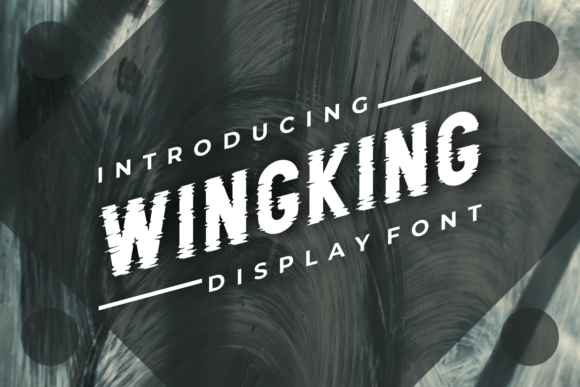
Wingking Font Review for Modern Web Design
I was recently staring at a Figma file for a creative coaching client, trying to find the right balance between professional authority and approachable warmth. The layout was solid, the color palette was refined, but the hero section felt flat. It lacked that specific digital texture that stops a user from scrolling past. That is when I decided to test Wingking in the main headline. As a web designer who frequently navigates the tension between aesthetic appeal and functional usability, I am often skeptical of new display fonts. Many look beautiful in a static preview but fall apart when subjected to responsive breakpoints, variable screen sizes, and accessibility standards. However, integrating this typeface into a live project revealed why it has become such a valuable asset in my digital typography toolkit.
Wingking is not just another decorative option; it is a modern display font that carries a distinct personality without sacrificing structural integrity. In the context of web design, where every pixel affects load time and legibility, finding a creative font that performs well across devices is rare. My experience testing this typeface on landing pages, portfolio sites, and e-commerce headers suggests it bridges the gap between editorial style and user interface functionality. It offers a cool, contemporary vibe that elevates digital brand identities, provided it is deployed with intention and technical awareness.
Elevating Hero Sections and Digital Brand Identity
The primary strength of Wingking lies in its ability to command attention in high-impact areas like hero sections and above-the-fold content. When designing for a boutique online store or a personal brand website, the headline needs to communicate the brand's essence in milliseconds. During my testing, I found that Wingking possesses enough geometric stability to remain readable at large sizes while offering unique character shapes that differentiate the brand from generic system fonts. It avoids the overly distressed look that can sometimes cause rendering issues on lower-resolution screens, maintaining crisp edges even when scaled up for desktop monitors.
This visual personality translates directly to perceived value. For a course sales page I recently redesigned, swapping a standard bold sans serif for Wingking in the main value proposition created an immediate sense of premium quality. The font feels curated rather than default, which helps establish trust with visitors. In digital branding, this distinction matters. Users associate thoughtful typography with professional service delivery. Whether you are building a portfolio homepage, a campaign landing page, or a digital product showcase, this typeface acts as a visual anchor. It signals to the user that the content they are about to consume has been crafted with care, encouraging them to stay longer and engage more deeply with the site.
Responsive Behavior and Mobile Legibility
A beautiful font is useless if it breaks the mobile experience. One of the first things I evaluate in any new webfont is how it handles vertical space and narrow viewports. Wingking performs surprisingly well in responsive layouts, but it requires deliberate scaling strategies. On desktop, the letterforms have room to breathe, allowing the modern aesthetics to shine. On mobile, however, the tight tracking that looks elegant on a wide screen can become visually dense. I found that adjusting the line-height and slightly increasing letter-spacing on smaller breakpoints preserved the font’s charm without compromising readability.
For UI designers, it is crucial to remember that display fonts behave differently than body copy. Wingking is optimized for short phrases, titles, and calls to action, not for paragraphs of text. When used for button labels or navigation items, size becomes a critical factor. I recommend keeping this typeface above 16px equivalent on mobile devices to ensure touch targets remain clear and text remains accessible. If your design relies on overlaying text on images, Wingking holds up well due to its consistent stroke weight, but always ensure sufficient contrast ratios. Testing on actual devices, rather than just browser resizing tools, confirmed that the font maintains its integrity against complex background textures, making it suitable for immersive storytelling sections and promotional banners.
Strategic Font Pairing for User Experience
No font exists in isolation, and Wingking demands a supportive partner to function effectively in a web environment. Because it carries so much visual weight and personality, pairing it with another decorative font usually results in a cluttered, confusing interface. The most successful implementations I have tested involve grounding Wingking with a clean, neutral sans serif font for body copy. This creates a classic high-low dynamic: the display font captures emotion and interest, while the utilitarian partner ensures information is digestible and scannable.
Consider the hierarchy of a blog post or a service page. Using Wingking for H1 and H2 tags establishes a strong editorial rhythm, guiding the user’s eye through the content structure. Meanwhile, a simple geometric sans serif for the article text reduces cognitive load. This pairing strategy is essential for maintaining good UX. You want users to feel inspired by the headlines but comfortable reading the details. Alternatively, for brands seeking a more traditional or academic feel, pairing Wingking with a minimalist serif font can create a sophisticated, magazine-like aesthetic. The key is restraint. Let Wingking be the star of the show in specific moments, and allow your secondary fonts to handle the heavy lifting of communication.
Technical Considerations and Licensing for Web Projects
Before committing Wingking to a production site, web designers must address the technical and legal foundations. Performance is paramount. Always subset your webfonts to include only the characters necessary for your specific language and content. This reduces file size and improves First Contentful Paint (FCP) metrics. Additionally, verify that the font files are optimized for web use (WOFF2 format is currently the industry standard). While Wingking renders beautifully, unoptimized font files can negate the design benefits by slowing down the user experience.
Licensing is equally critical for commercial web projects. Ensure you have the appropriate webfont license that covers your expected monthly pageviews. Many creators overlook this, assuming a desktop license covers website embedding, which is rarely the case. Furthermore, check for multilingual support if your site serves a global audience. Missing glyphs can result in fallback fonts appearing mid-headline, breaking the immersive experience you worked hard to create. Finally, review the included alternates and ligatures. Wingking often includes special characters that can add bespoke flair to logo designs or custom graphics within the site. Utilizing these OpenType features can transform a standard template into a truly custom digital brand experience.